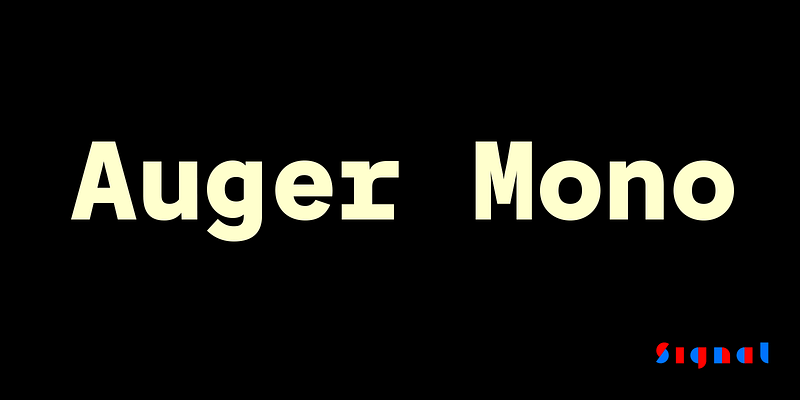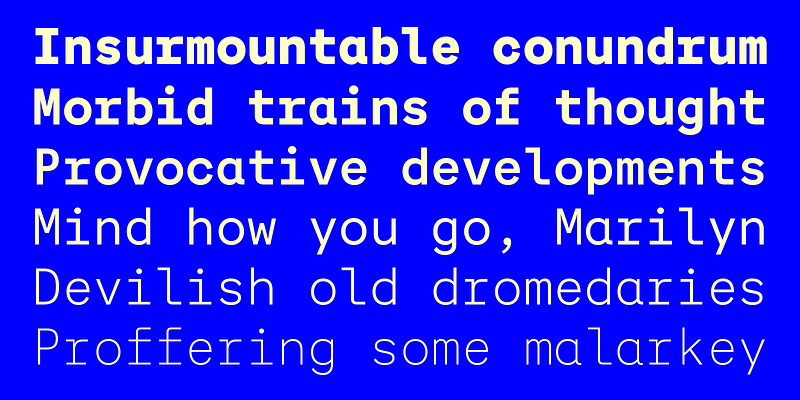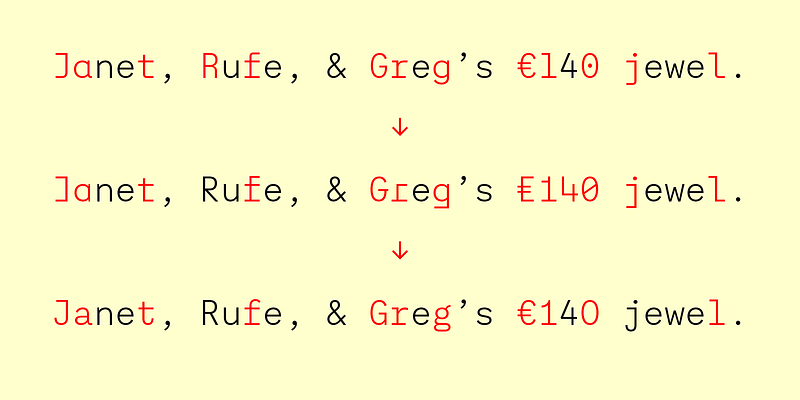
When two roads diverge in a wood, Auger Mono takes both. An array of alternates gives it unusual stylistic flexibility for a fixed-width typeface, ranging from plain and practical to aggressively geometric. Influences include old Leroy lettering templates, Fortunato Depero’s Bolted Book, and classic grotesk jobbing faces.